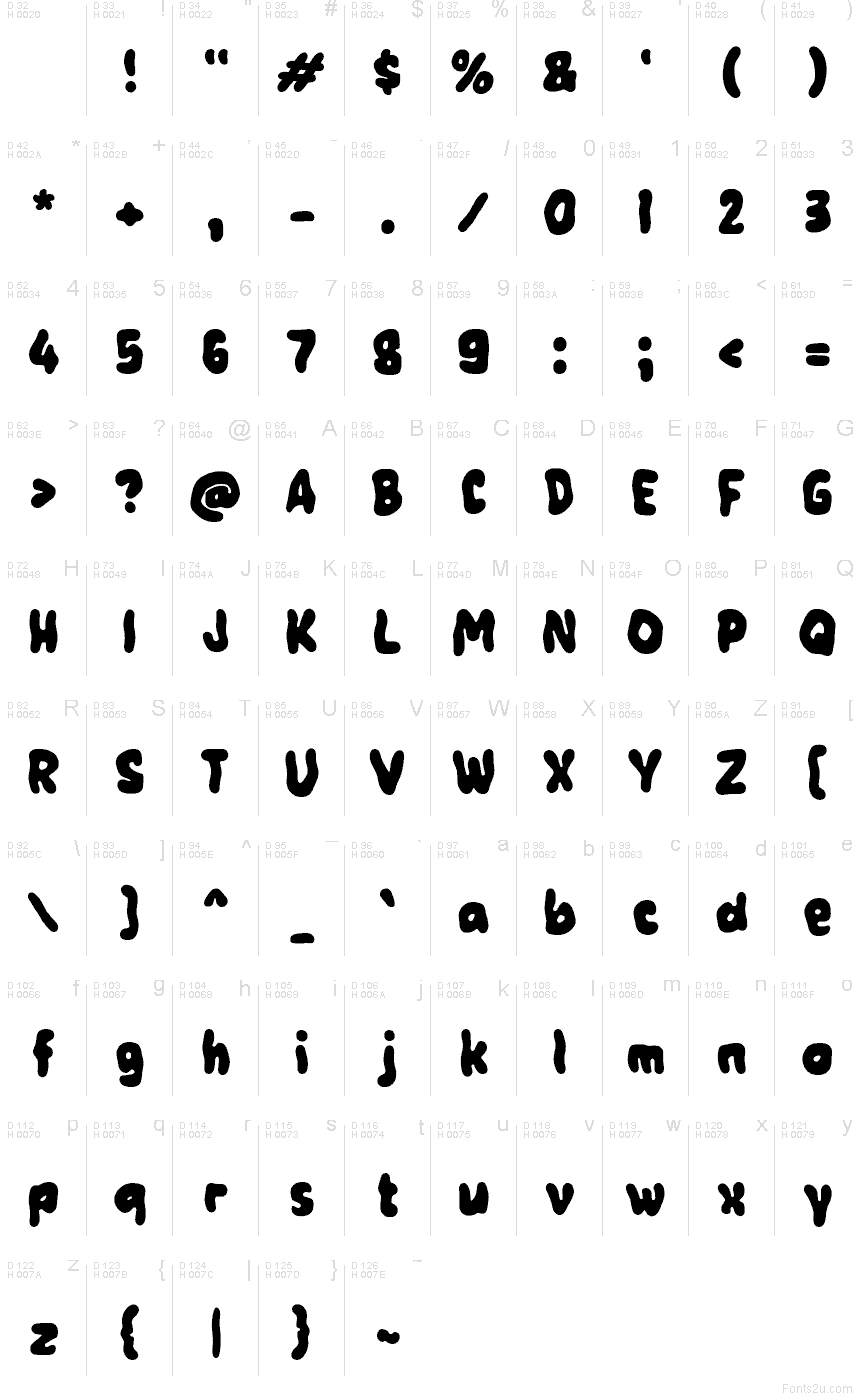
Zabilxa
Zabilxa font by wepfont.com is a free groovy display typeface that looks like it was piped out of a marker and left to puff up on the page. Its chunky, inky blobs and soft, wobbly curves feel friendly and hand-squeezed, giving every word a bouncy, upbeat rhythm. Letters snuggle close without feeling cramped, so even short headlines feel bold, loud, and full of personality.
Using Zabilxa, you can instantly turn party posters, kids’ book covers, sticker sheets, playful logos, merch graphics, and social media headers into something you can almost squish with your fingers. This free font shines when it’s big and loud; pair it with a clean, thin sans serif for body text to keep the bubbly charm grounded and readable.